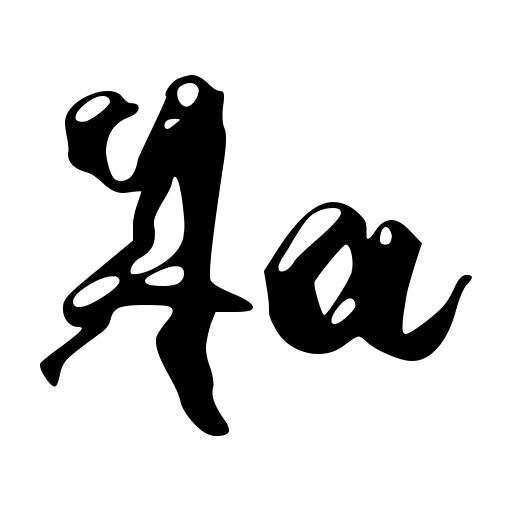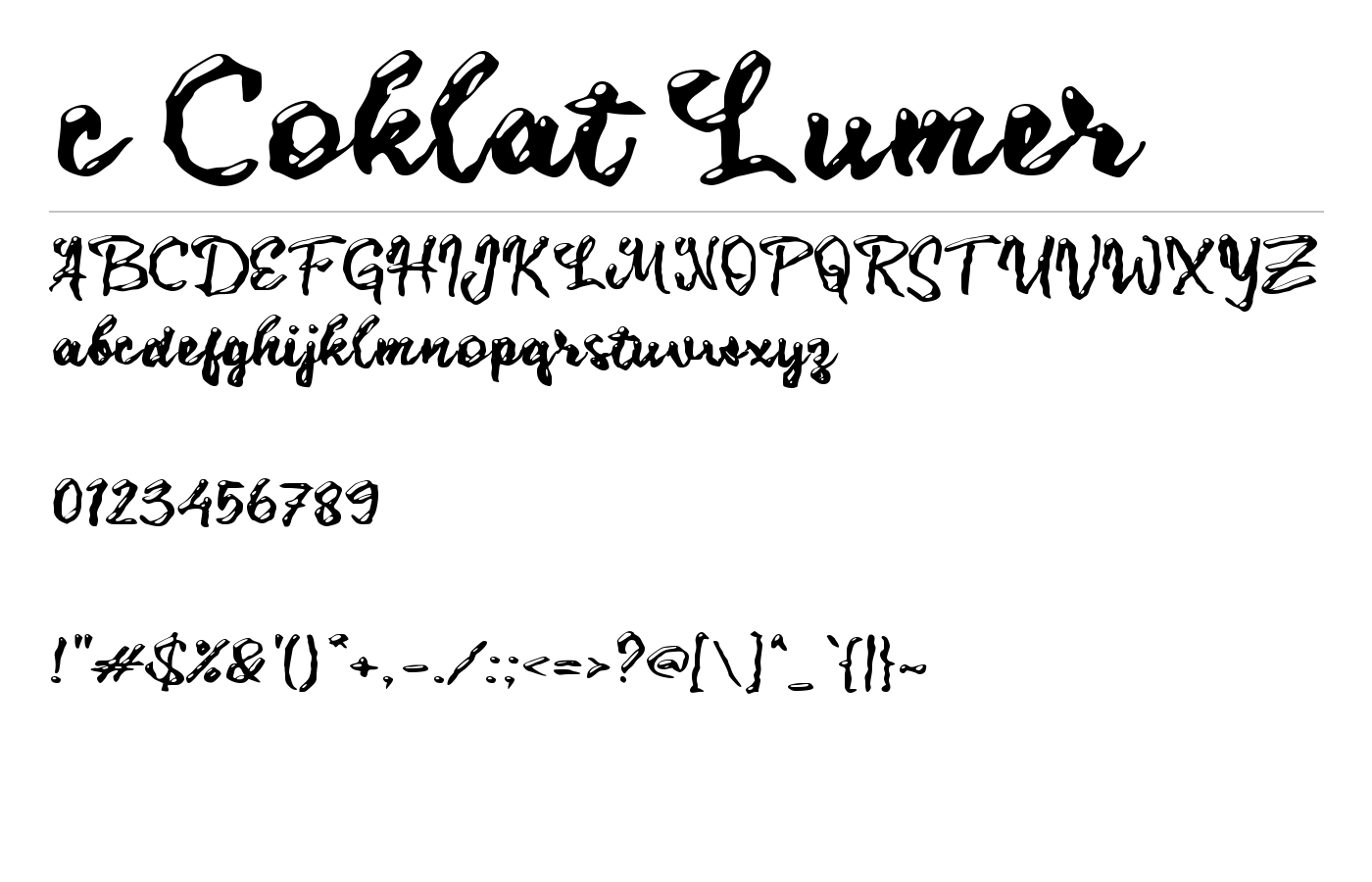
Coklat Lumer is a bold, hand-drawn script font with a playful and organic feel, featuring uneven, textured strokes that mimic ink or paint splashes. Its lively, informal style makes it perfect for creative projects, branding, and packaging that aim to convey warmth and a handcrafted touch. This font works best in headlines, logos, and artistic designs where a unique, expressive personality is desired.
c Coklat Lumer Font